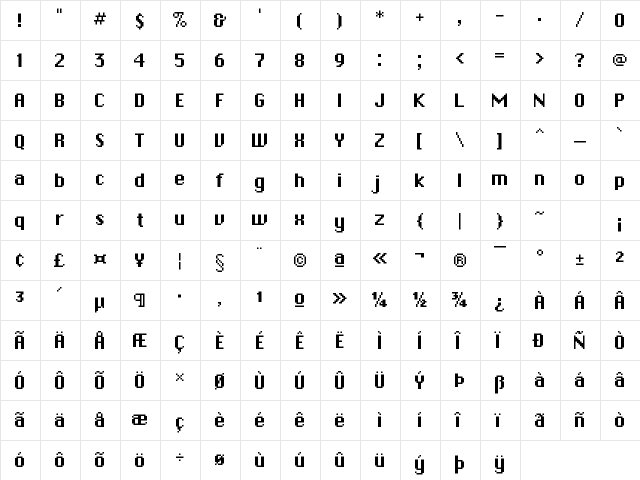
Euxoi Regular
Design Context for Euxoi Typeface
Euxoi offers clean, dependable letterforms without strong stylistic allegiance, making it a practical choice for designers who need flexibility.
Pro Tip: Use Euxoi in both headline and body roles to test its range before committing to a single application.